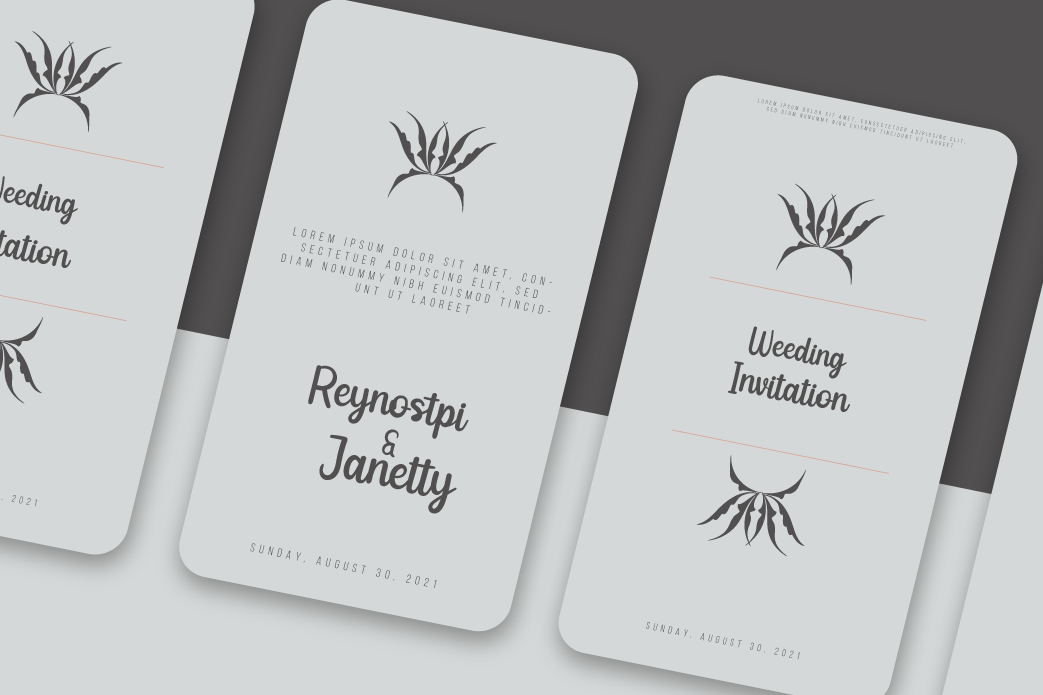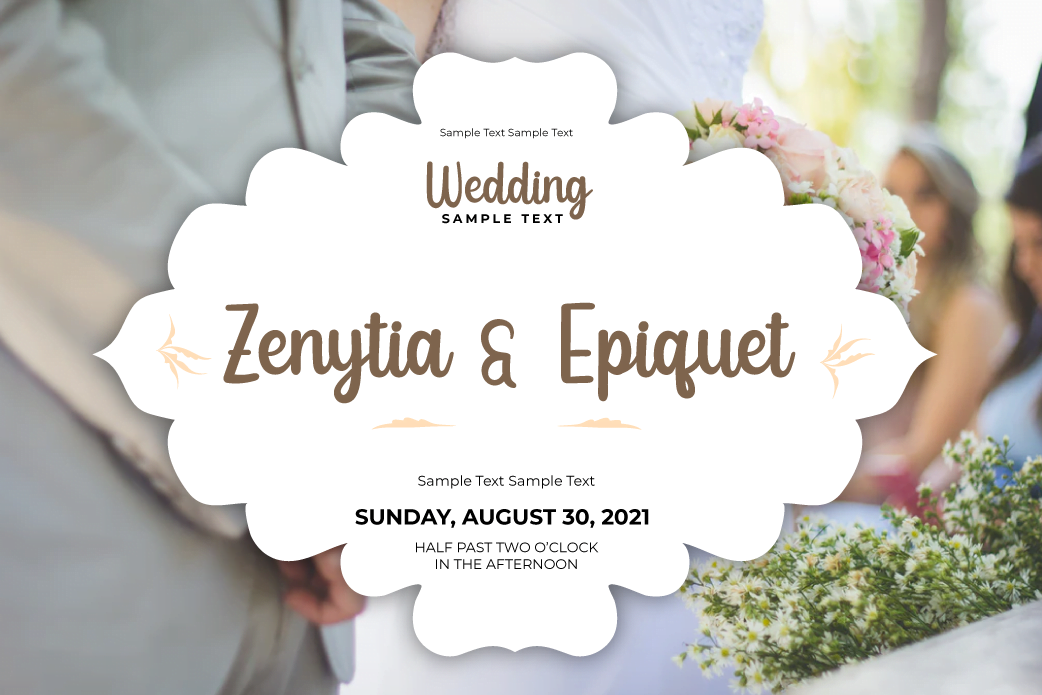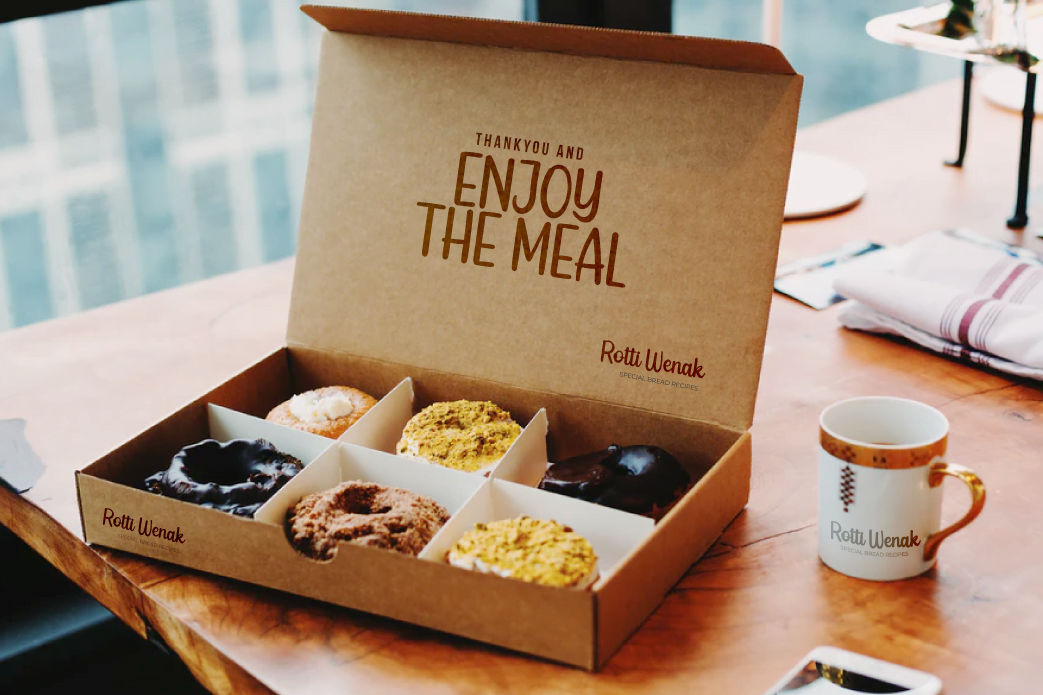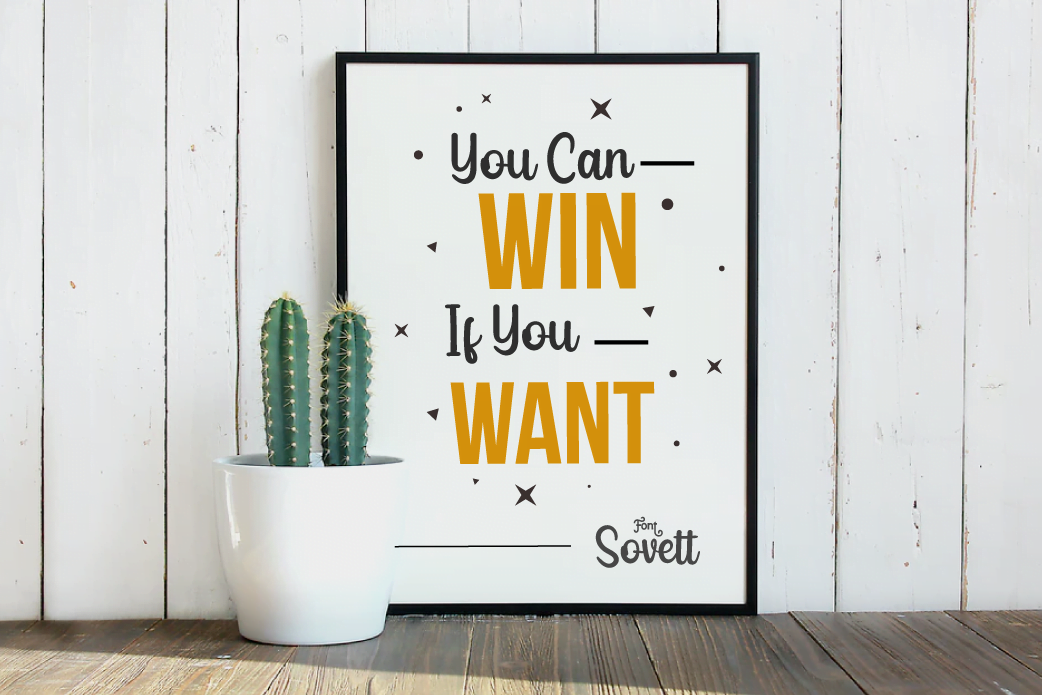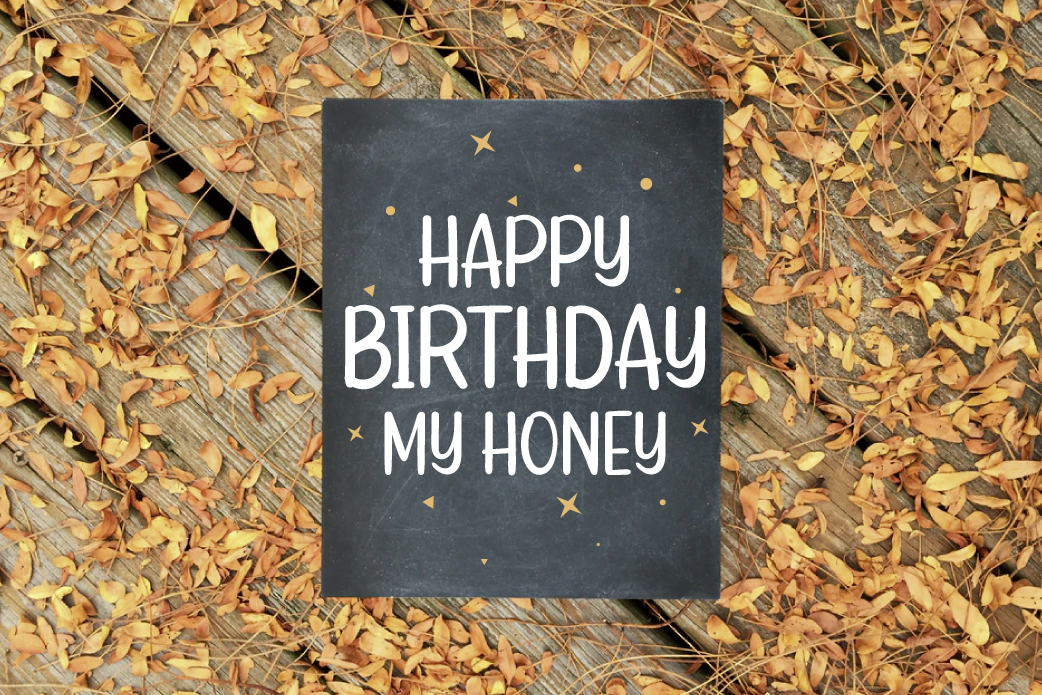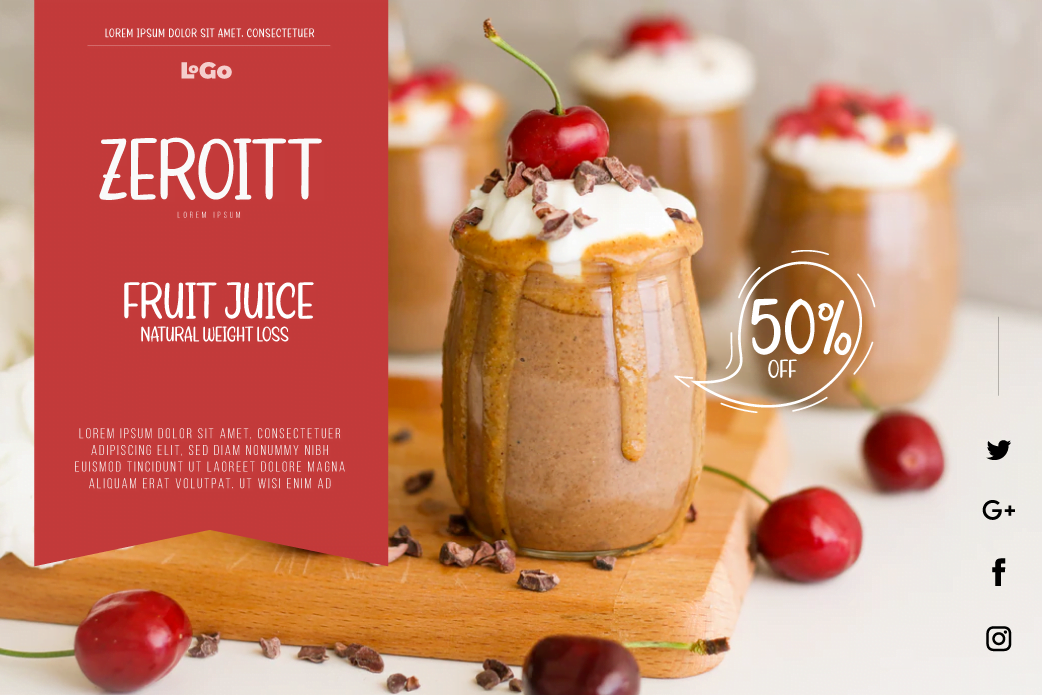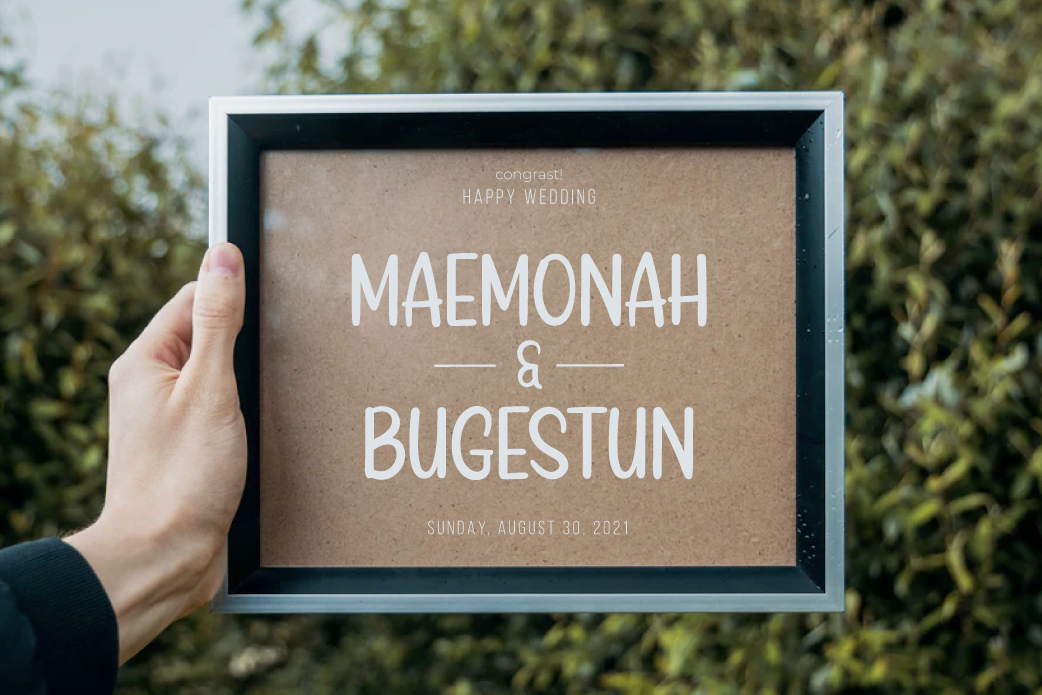
Sovett
Introduces our new “Sovett” handwriting script font which is flexible in every typeface. This beautiful font you should use to create your perfect design work
This font is designed with a natural touch of handwriting which is refined to create a portion and composition that suits your needs. So this font is suitable for craft, children’s writing, adventure posters, food banner titles, wedding invitations, product packaging logos, quotes, social media page covers, furniture banner headlines, book covers, and much more.